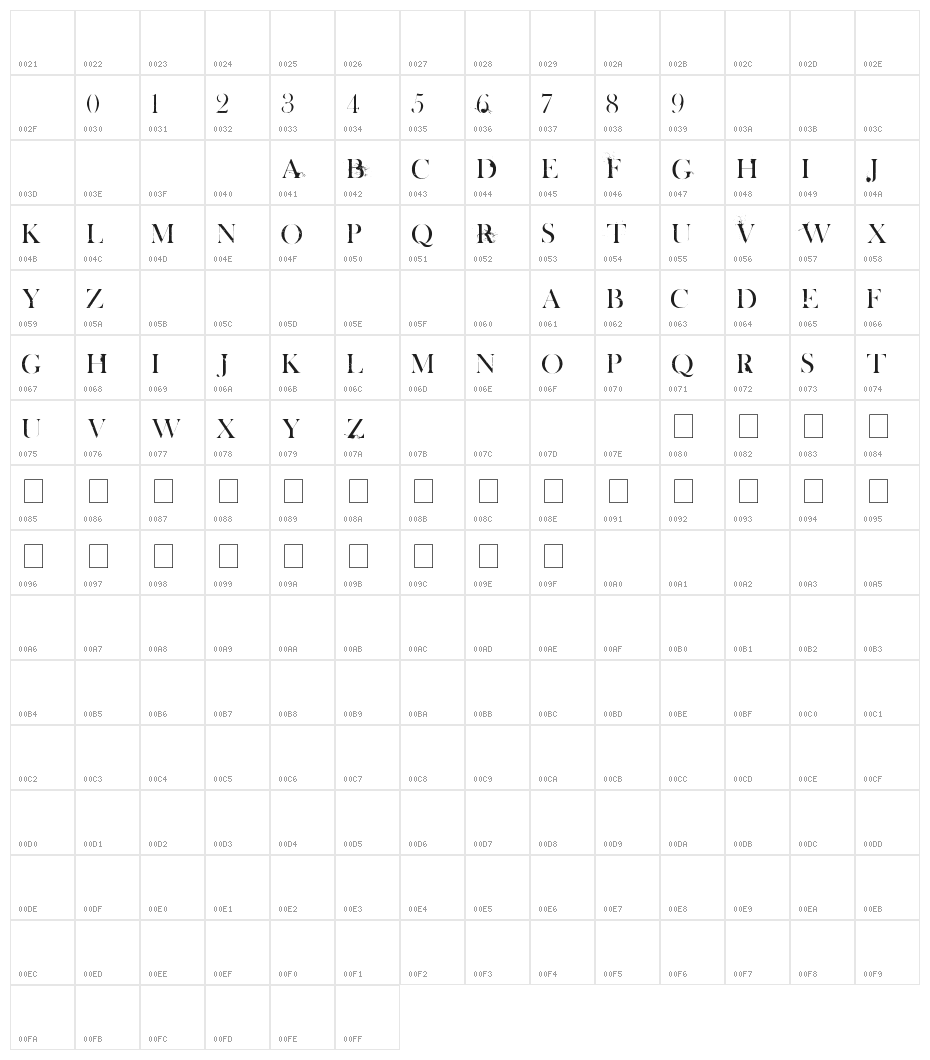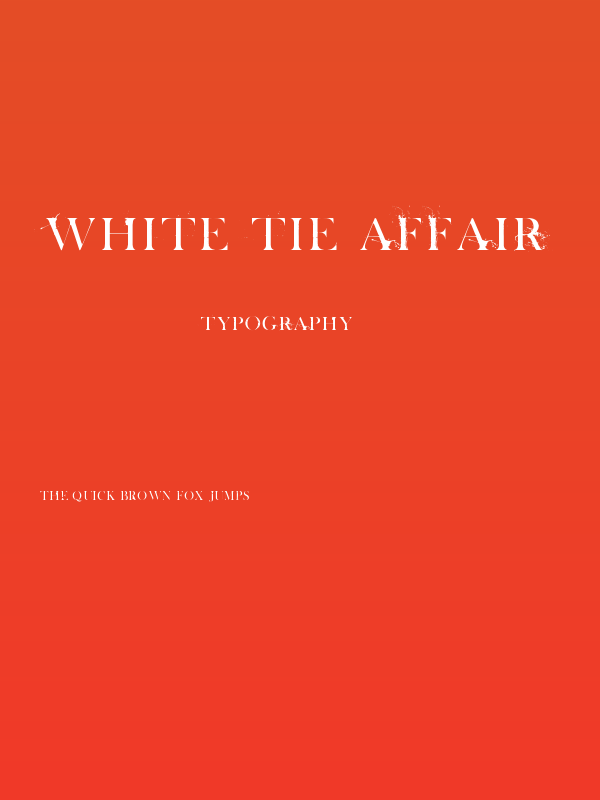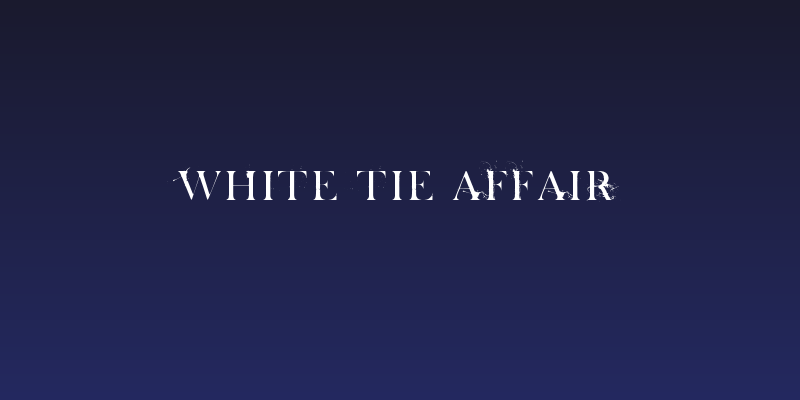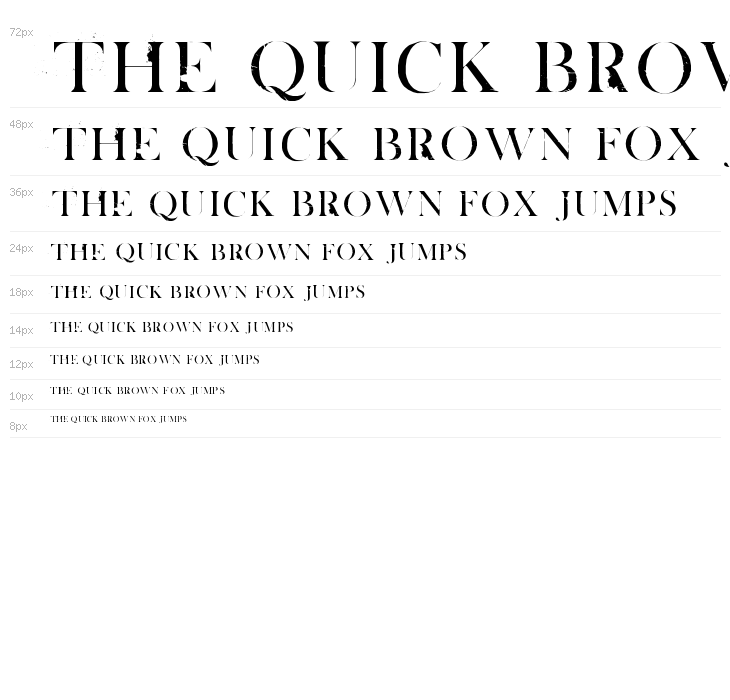
White Tie Affair Font
White Tie Affair Description
This font features a distressed, vintage aesthetic with a serif style that gives it a classic yet worn appearance. The characters are bold and have a high contrast between thick and thin strokes, adding to the dramatic effect. The texture within each letter suggests a weathered or aged look, making it ideal for designs that require a touch of nostalgia or a rustic feel. The uppercase letters are prominent and commanding, while the numbers maintain the same distressed style, ensuring consistency across all characters.
| Proposed Projects | Ideal for vintage-themed posters, rustic branding, album covers, and event invitations that require a classic yet edgy feel. |